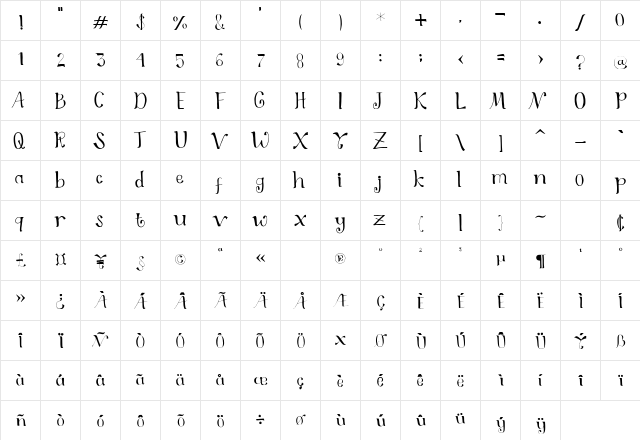
Halgonak Regular
| Foundry | JETSMAX |
| Designer | Novia Lorenza |
Design Context for Halgonak Typeface
Halgonak is a composed and adaptable typeface that performs quietly and consistently across a wide range of design contexts.